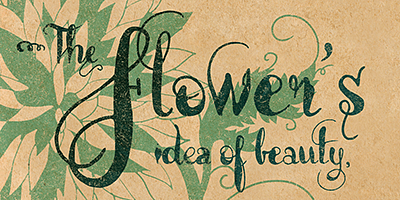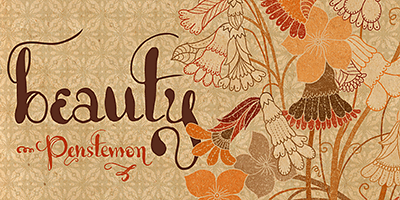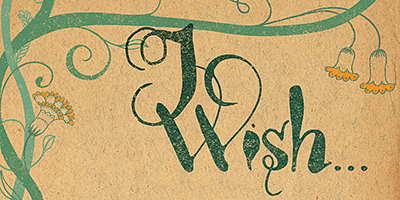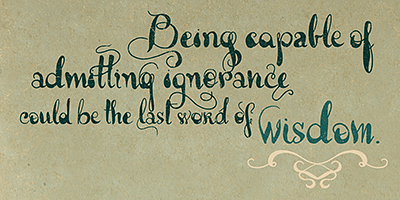
Quick, spontaneous, overwhelmed stroke, with some awkwardness as well as certainty in it. About the writing that looms line after line. About the mischievous stains of ink flooding my writing tool.